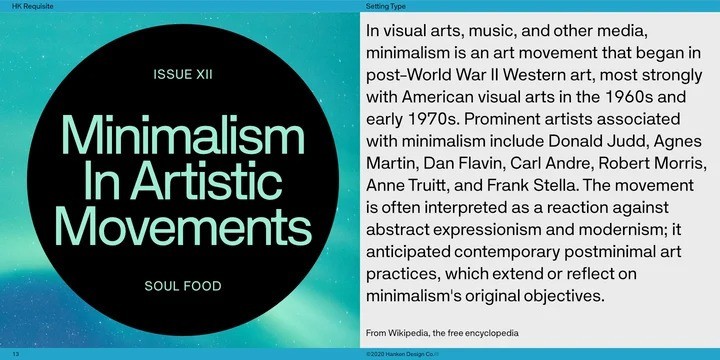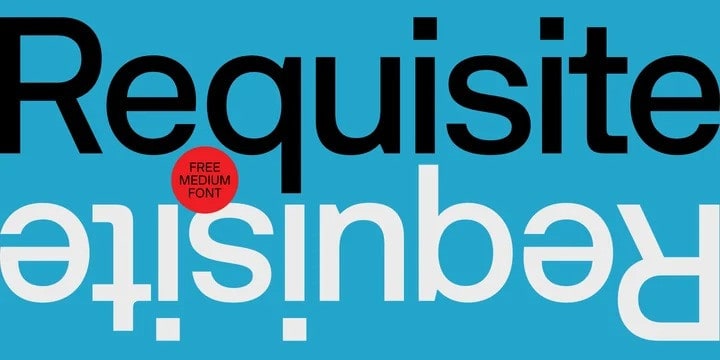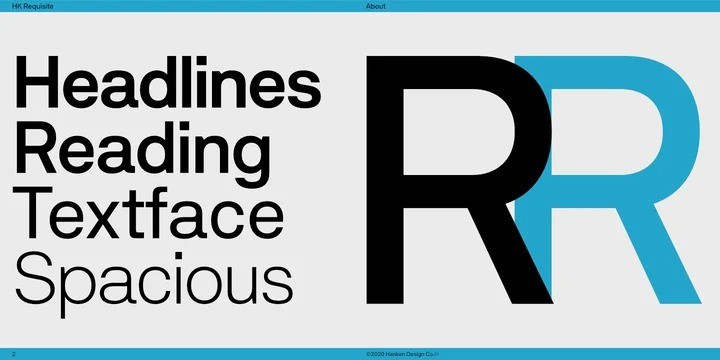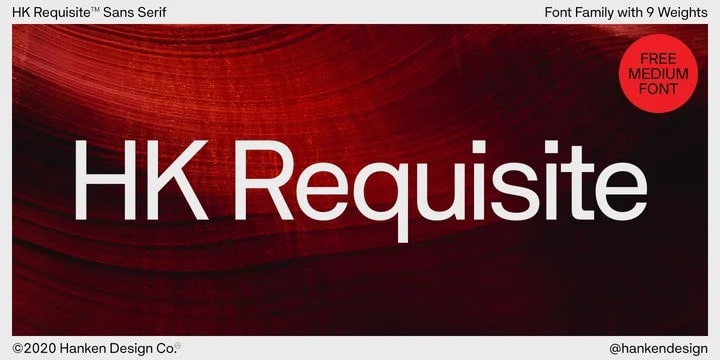
HK Requisite Sans Serif Font is a casual and modern sans. With slightly wide form and modern details, this font looks more casual for your any project and designs. This font is a sans serif typeface inspired by the compactness of Neue Haas Grotesk and the strong character of Akzidenz Grotesk. The name came from the fact that fonts are elements that are necessary for the achievement of a specified end.